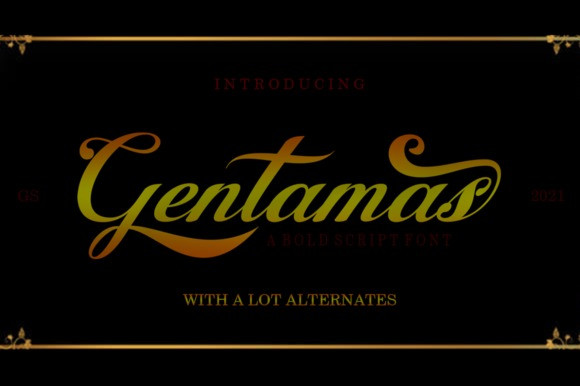
Gentamas Font
Gentamas Font is a gorgeous and bold handwritten font, crafted to give your headlines and logotype projects a retro touch. This font is PUA encoded which means you can access all glyphs and swashes with ease!